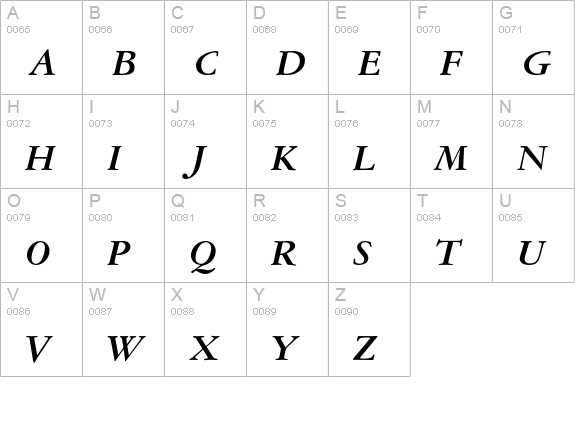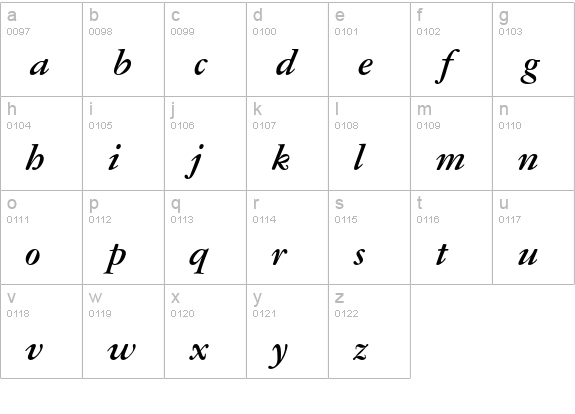
Garamond Three Bold Italic Font Details
Garamond Three Bold Italic is a strong, high-contrast, italic variant in the Garamond typeface family \xE2\x80\x94 well suited to headlines, attention-grabbing titles, and strong calls-to-action.
Garamond Three Bold Italic font exudes elegance and sophistication with its bold yet graceful letterforms. The distinctive slanted italics add a touch of flair to any design project, making it stand out with a touch of modernity. This versatile typeface is perfect for creating eye-catching headlines, branding materials, or editorial designs. And the best part? Garamond Three Bold Italic font is completely free to download at FontsMarket.com! Now you can elevate your designs without breaking the bank. Don't miss out on the opportunity to enhance your projects with this stunning font that combines classic charm with a contemporary twist. Download Garamond Three Bold Italic today and let your creativity soar.